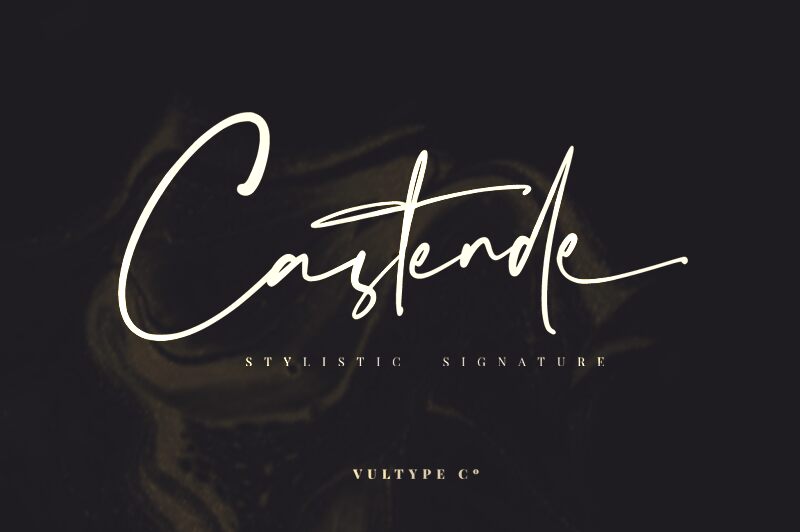
Castende
Castende font is a light handwritten masterpiece from Vultype imbued with casual sophistication and modern aesthetics. Channeling the essence of signature styles, each letter maintains a smooth flow achieved through swift naturalness and elegance. Use this font in projects needing an exquisite yet effortless look where instant clarity registers in lowercase writings at the smallest sizes.